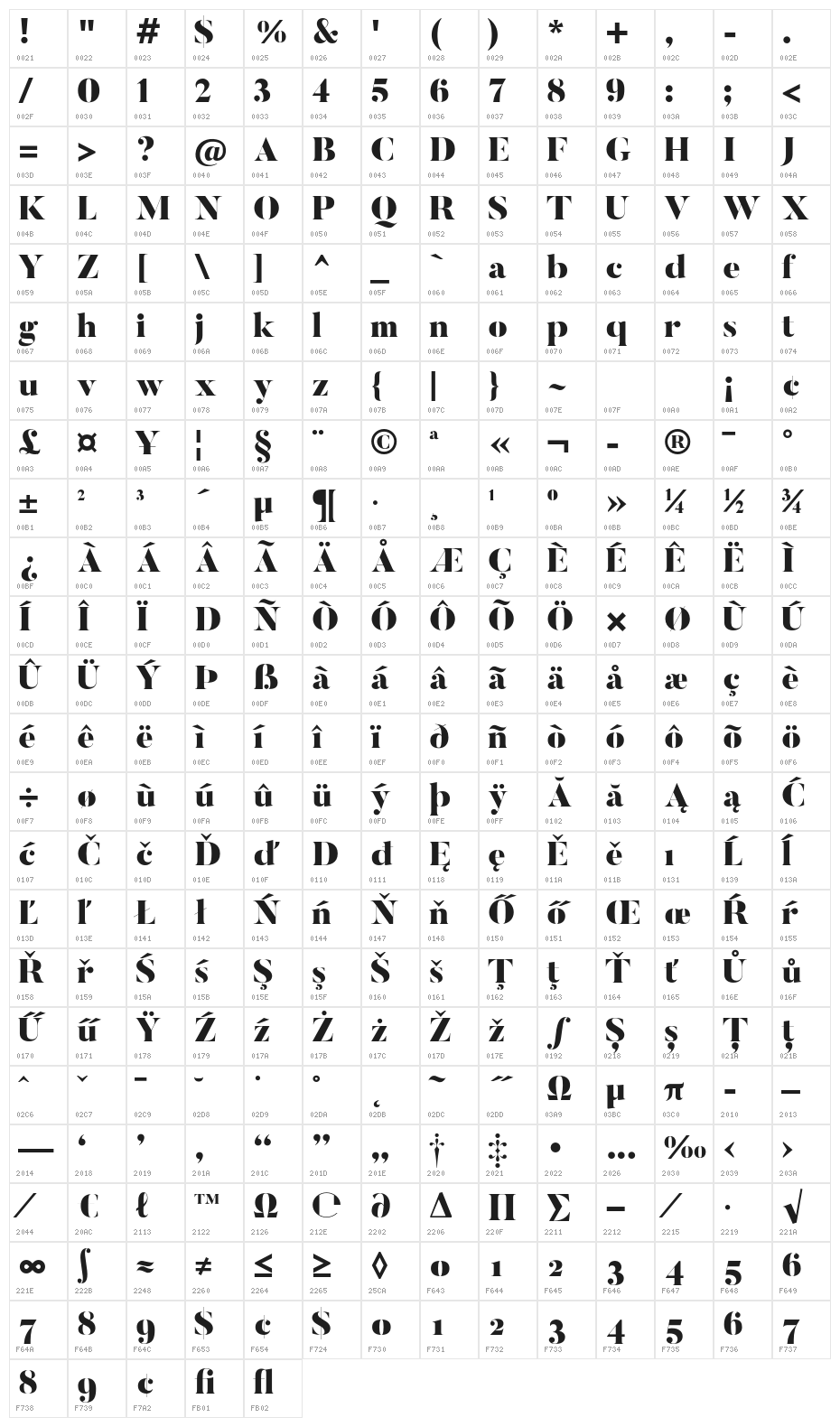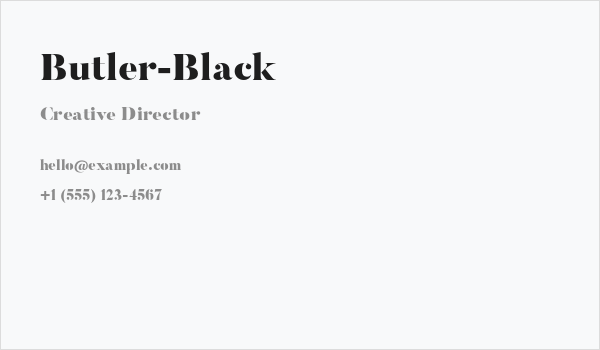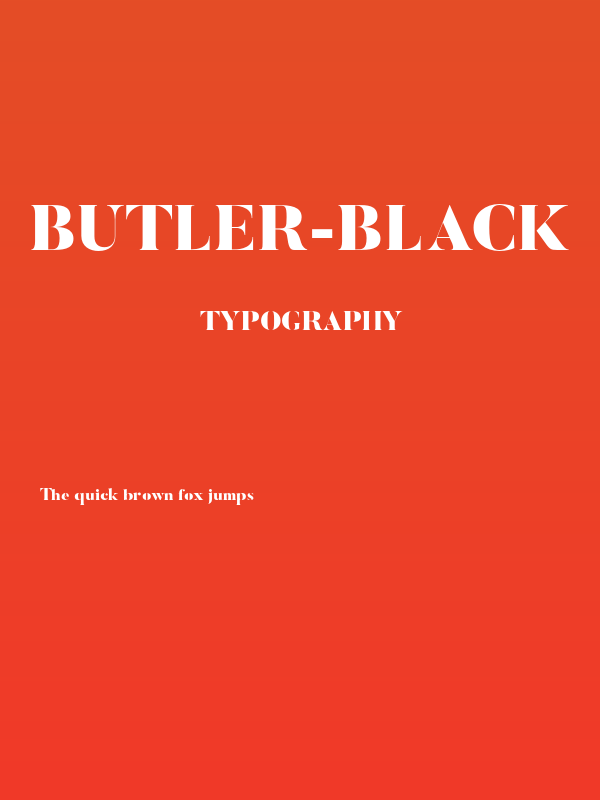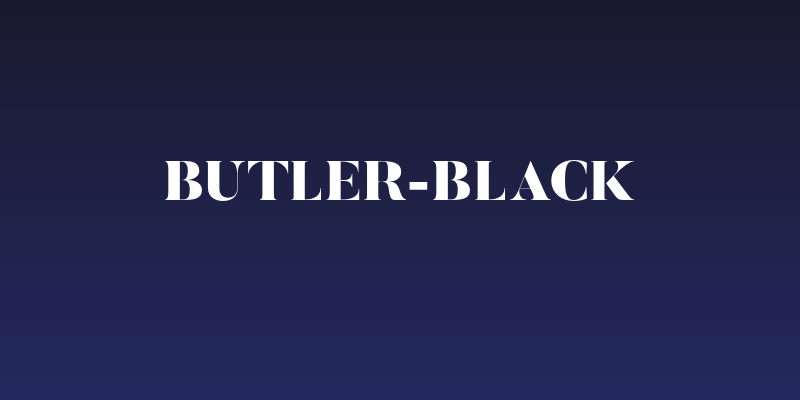
Butler-Black Font
Butler-Black Description
This font exudes a bold and sophisticated presence with its high contrast between thick and thin strokes, making it ideal for impactful headlines and titles. The uppercase letters are particularly striking, featuring sharp serifs and a modern flair that balances elegance with assertiveness. The lowercase characters maintain a consistent style, offering a harmonious blend of traditional serif elements with a contemporary twist. The numerals are robust and clear, ensuring readability while maintaining the font's overall aesthetic. Special characters are designed with the same attention to detail, providing versatility for various design needs.
| Proposed Projects | Ideal for luxury branding, editorial design, fashion magazines, and high-end product packaging. |